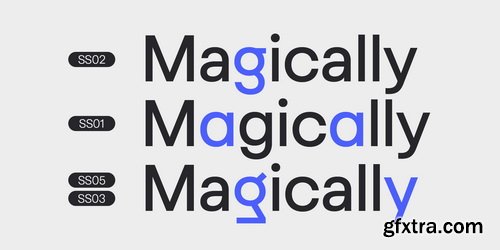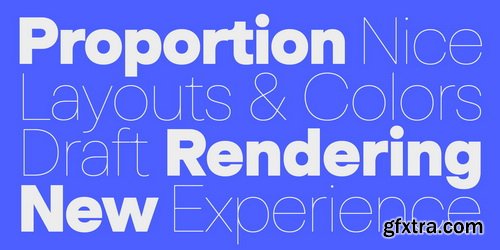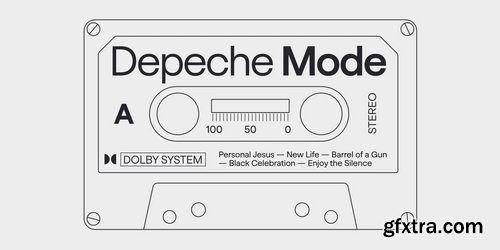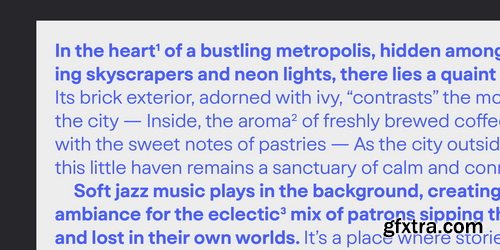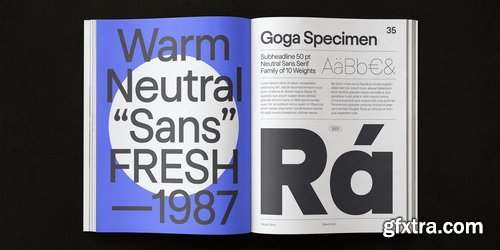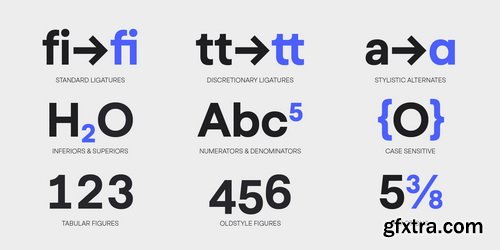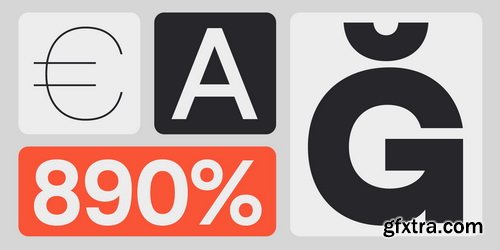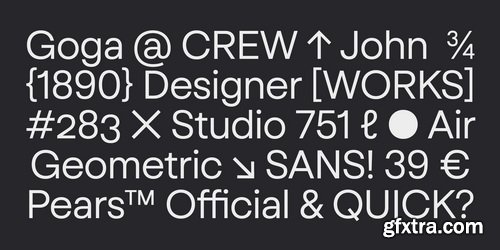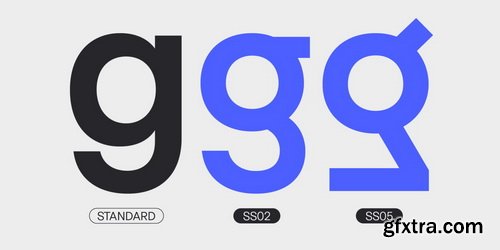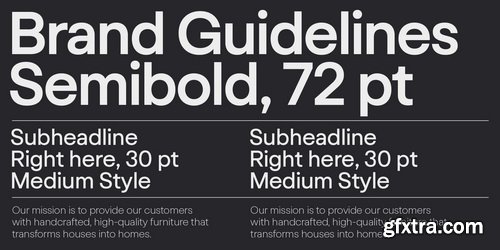
Myfonts - Goga Font Family
Introducing Goga, a versatile sans serif family available in 10 weights from hairline to black. It is a typeface that combines the best of geometric sans serifs and neo-grotesques. It draws inspiration from typefaces like Avenir on the one hand and Helvetica on the other. Although Goga is a universal and neutral typeface, it is rather warmer and friendly in nature. If you want to add more juice to your project, you can do so by using unusual stylistic alternates of the lowercase g (hence the name Goga). Goga is a typeface suitable for both large sizes and smaller text, thanks to its large x-height. It contains Latin-extended character set, and thus supports most Latin languages. It also offers many open type features such as fractions, old-style figures, tabular figures, discretionary ligatures and more.